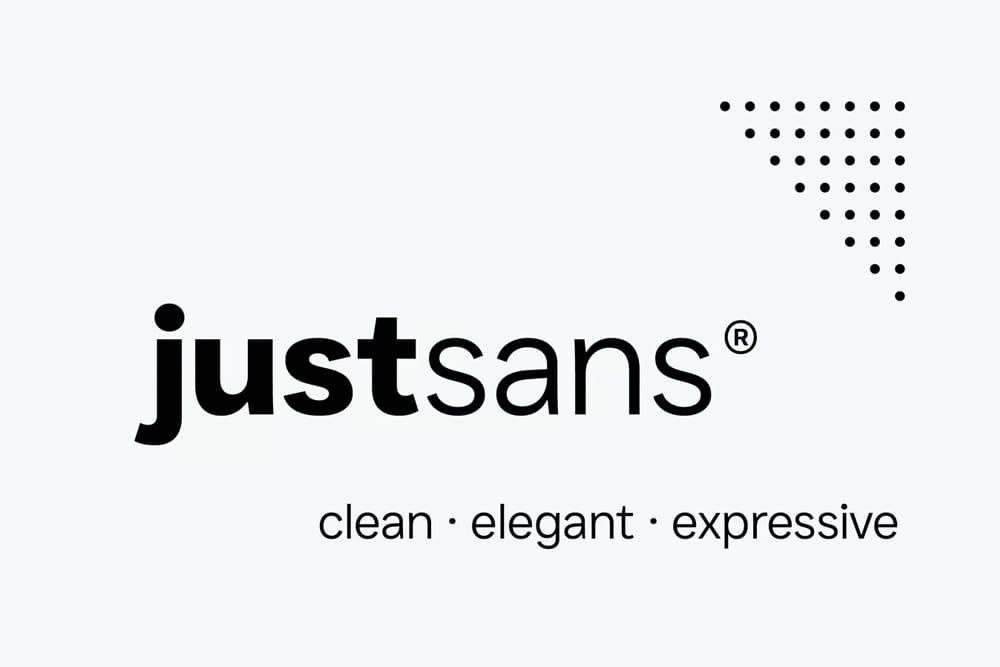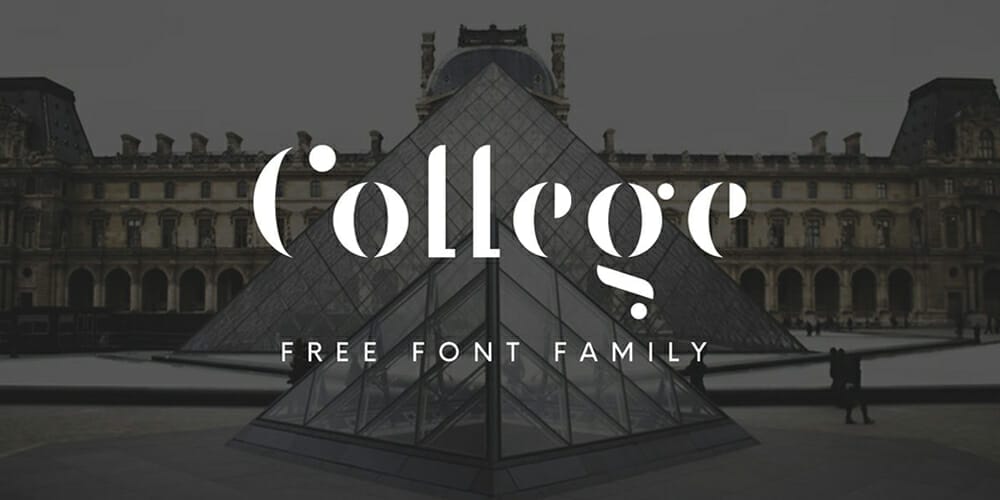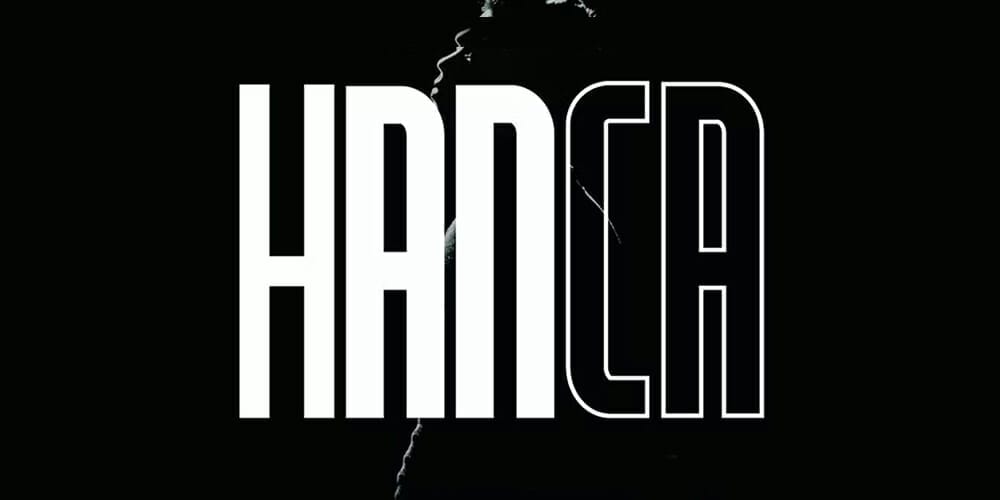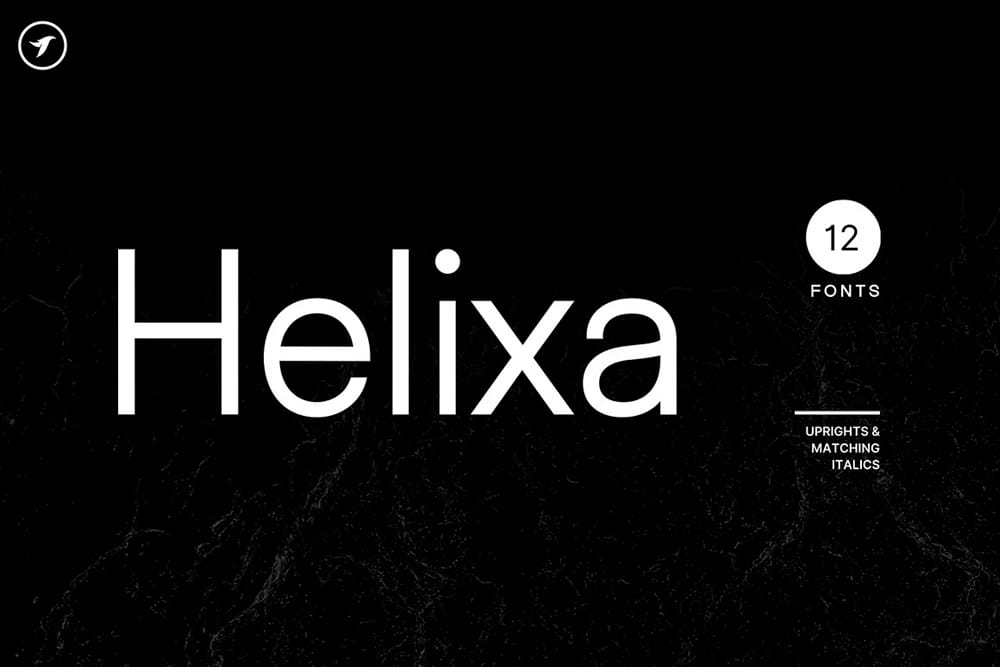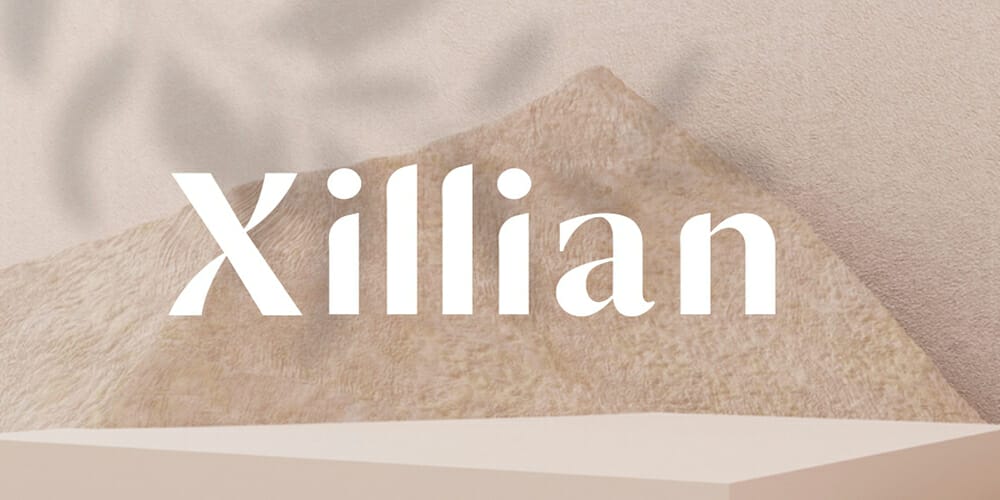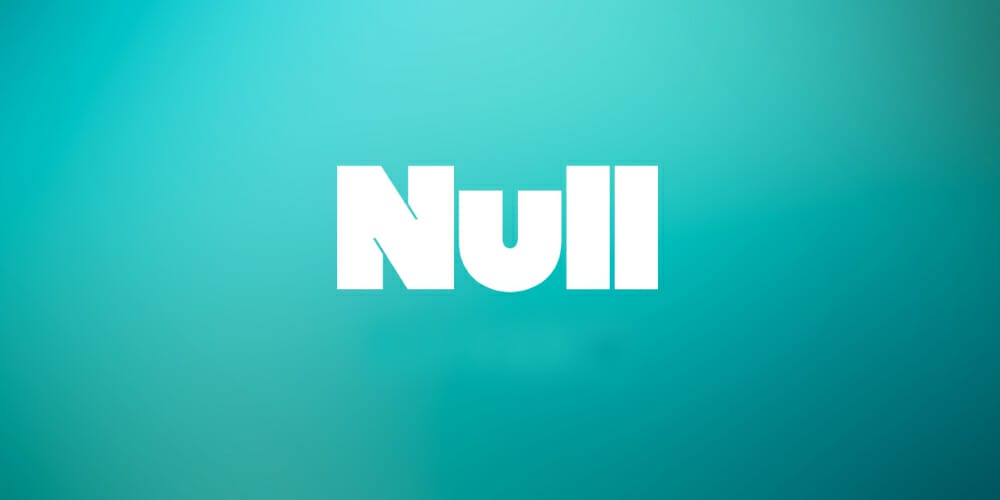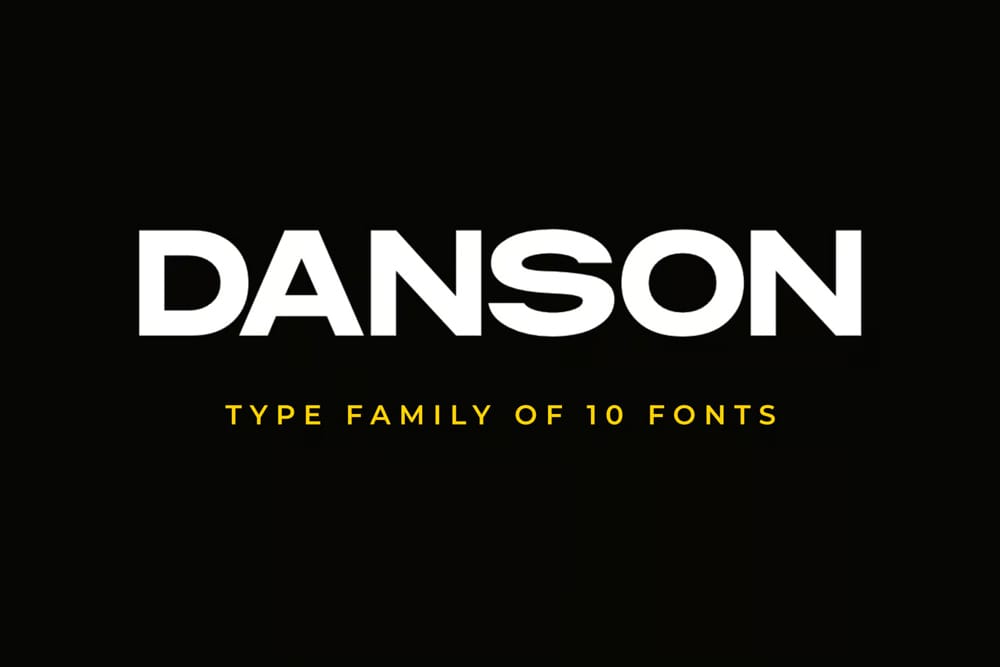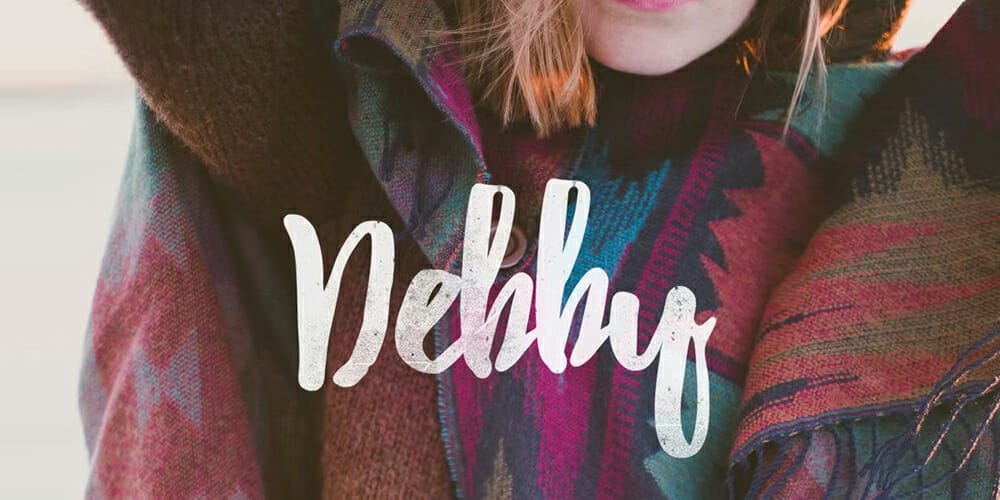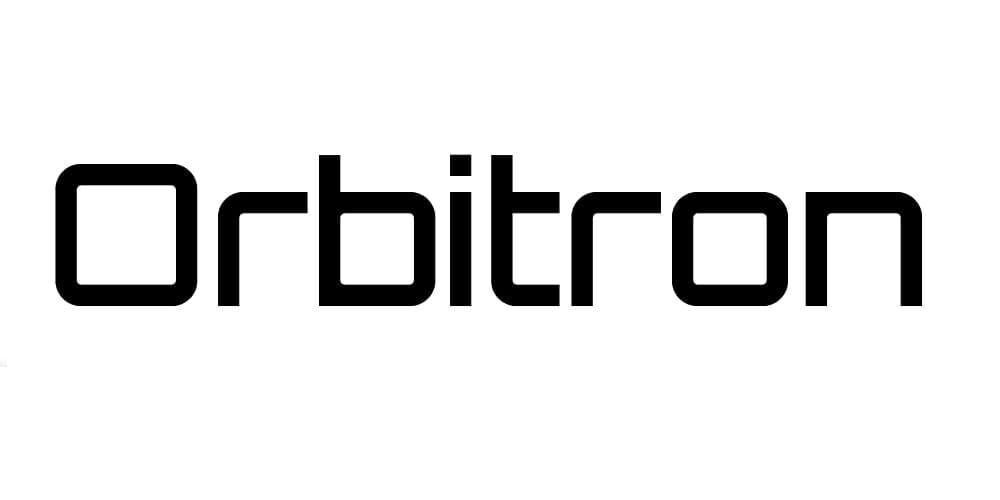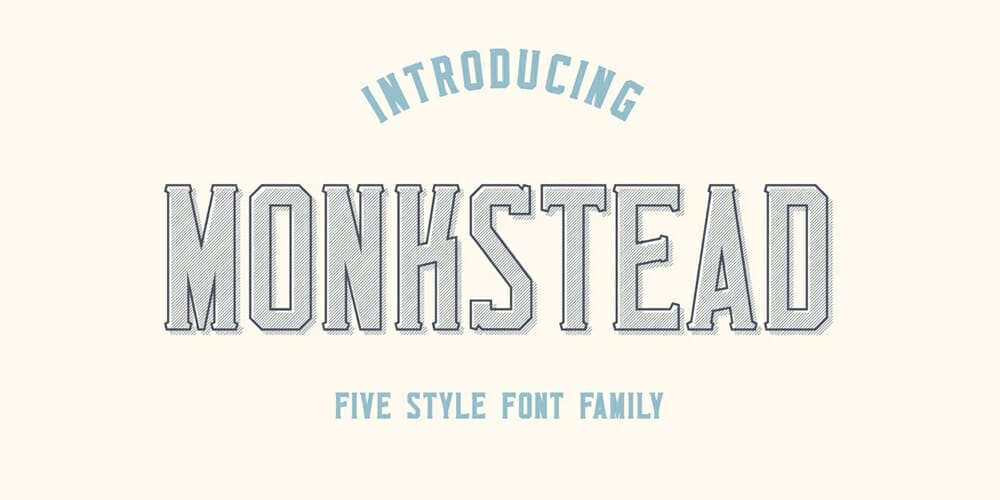
Top Free Fonts For Logo Design
An Introduction to Professional Logo Designing
Logos are the main identity of a company. They are used to represent a company in the market and also act as an identifier. Some people think that logo designing is an easy job, but it is not. It requires creativity and skills that need to be honed over time. Hence, it is always advisable to hire a professional logo designer who can create the perfect logo for your company.
The Importance of Good Logos
A logo is the symbol or emblem of a particular company, organization, or institution. It is usually a simple design that can be easily recognized from the name. A good logo should be simple and clear so that it can be easily recognized.
A logo helps in branding and marketing. It can be used on any kind of product or service for promotion in the market. A good logo will leave a long-lasting impression on people’s minds and will make them remember your brand every time they see it again.
The Importance of Fonts in Logo Design
Fonts are an important part of logo design. Fonts have the power to make or break a logo design. Here are some do’s and don’ts when it comes to fonts in logo design.
Do:
- Select fonts that are easy to read and consistent with the company’s branding
- Use a font that is appropriate for the industry
- Choose fonts that are available as webfonts
Don’t:
- Use fancy or trendy fonts in logos for children’s products
- Use too many different fonts in one logo
Different Types of Fonts and Why They Matter
Fonts have been an integral part of design for centuries. They are a vital part of the design process and can have a huge impact on how users perceive your website, blog post, or other content.
There are two main types of fonts: serif and sans-serif. Serif fonts are typically more traditional and professional looking while sans-serif fonts tend to be more modern and sleek. When choosing a font it is important to consider what you want your font to say about your brand or company.
How to choose the right typeface for your brand logo?
A logo is a brand’s identity. It is the first thing that people see and it makes an impression. The typeface of the logo can be used to communicate certain attributes about the brand. For example, a serif typeface can communicate tradition, while a sans serif font can appear more modern or cutting-edge.
The best fonts for logos are usually the ones that are easy to read and are not too complicated. There are many fonts available for free online, so it should not be difficult to find one that suits your needs and preferences. The best fonts for logos are usually the ones that are easy to read and are not too complicated. There are many fonts available for free online, so it should not be difficult to find one that suits your needs and preferences.
Can We Use Any Type of Font in Our Branding Project?
A font is a set of letters, numbers, or symbols that share common design features and are used together for printing text or displaying text on computer screens.
There are many different types of fonts available for commercial use. Just to name a few: serif, sans-serif, script, slab-serif, decorative, monospace.
How to Choose the Right Typefaces and Formatting to Create the Perfect Logo
Logo design is an art and a science. It requires both creativity and technical knowledge. This article will guide you through the process of choosing the right typefaces and formatting to create the perfect logo.
The first thing to consider when designing a logo is what is the purpose of the logo? Is it for a service, product or company? What are its goals? Is it for branding or just for decoration? After you have answered these questions, you can start looking at different typefaces and their characteristics to see which one best suits your needs.
And there you have it, the ultimate list of free fonts that you can use in your logo design. With such a wide variety of fonts to choose from, there is no excuse not to find the perfect font for your logo. Remember to keep your target audience in mind when choosing a font and to test out a few different fonts before making your final decision. Good luck!
Rothena Chic Font
Spydole Font
Game Of Squids
Dash Font
Techna Sans Font
Beaver Typeface
Barshake Font
Trocchi
Milan Estate
Bebas Neue
Margaret Serif
Hipstelvetica Font
Norwester
Frizon Typeface
Figno
Junicode
Manzoni Typeface
Maxwell
Sanlulus
Leorio Font
XXII Aven
Plovdiv Typeface
Bronova Regular
Oligopoly
Neothic
Noway
Mantra Typeface
Batangas Typeface
Romancio Font
Dolce Vita Font
Haniya Font
Archivo Black Font
Moche